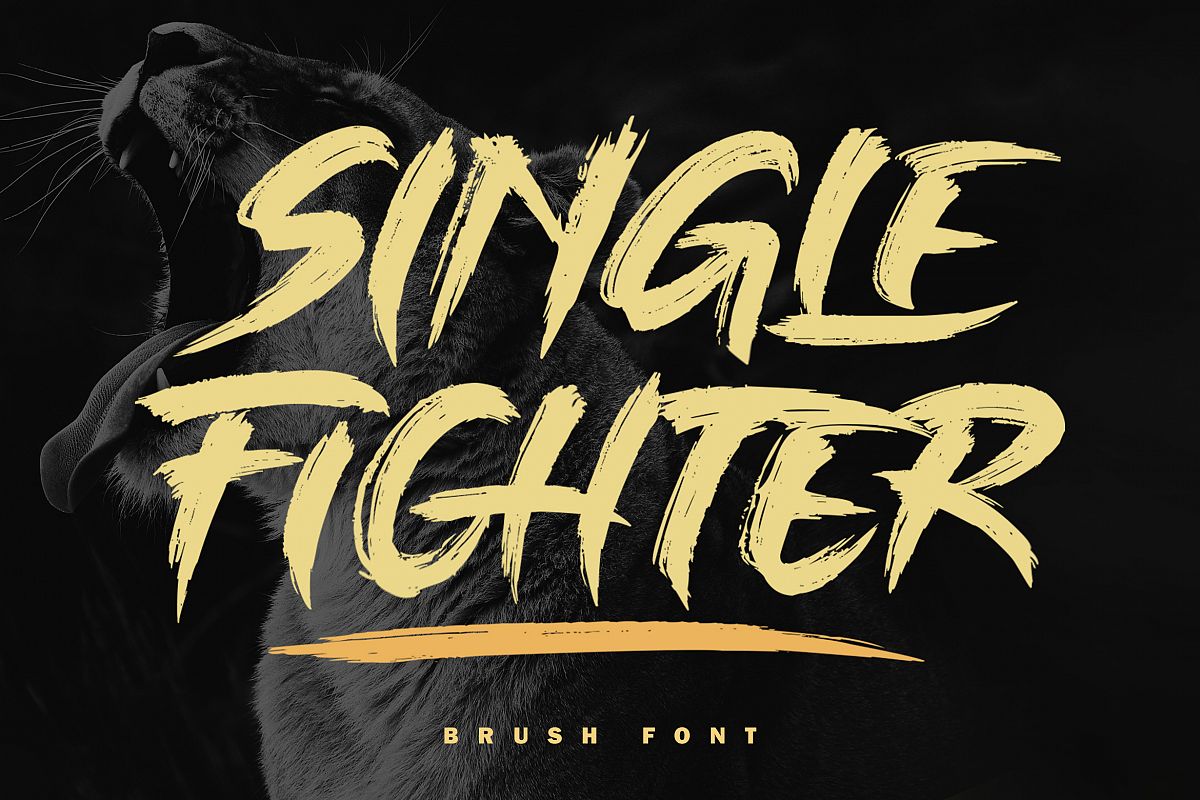
Single Fighter
SINGLEFIGHTER-Regular
SINGLE FIGHTER is a supercharged, street-wise brush font bursting with energy. With extra attention to quick strokes and sharp details, SINGLE FIGHTER is guaranteed to deliver an unapologetically loud & fast-paced message; ideal for logos, apparel, quotes, product packaging, or anything which needs a typographic turbo-boost